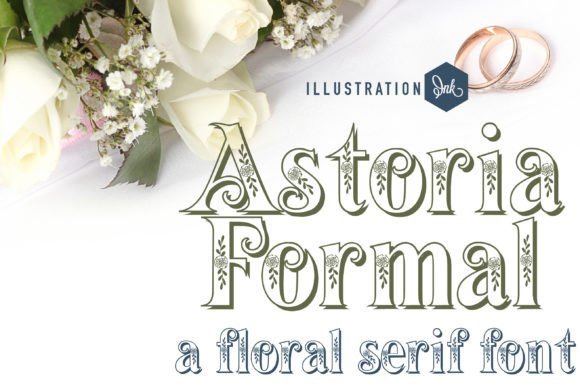
Introduction to Astoria Formal Font
Astoria Formal is a stylish and elegant font that has a classic look.
Its letters are hollow inside, and it includes beautiful floral decorations Perfect for fancy invitations and sophisticated designs.